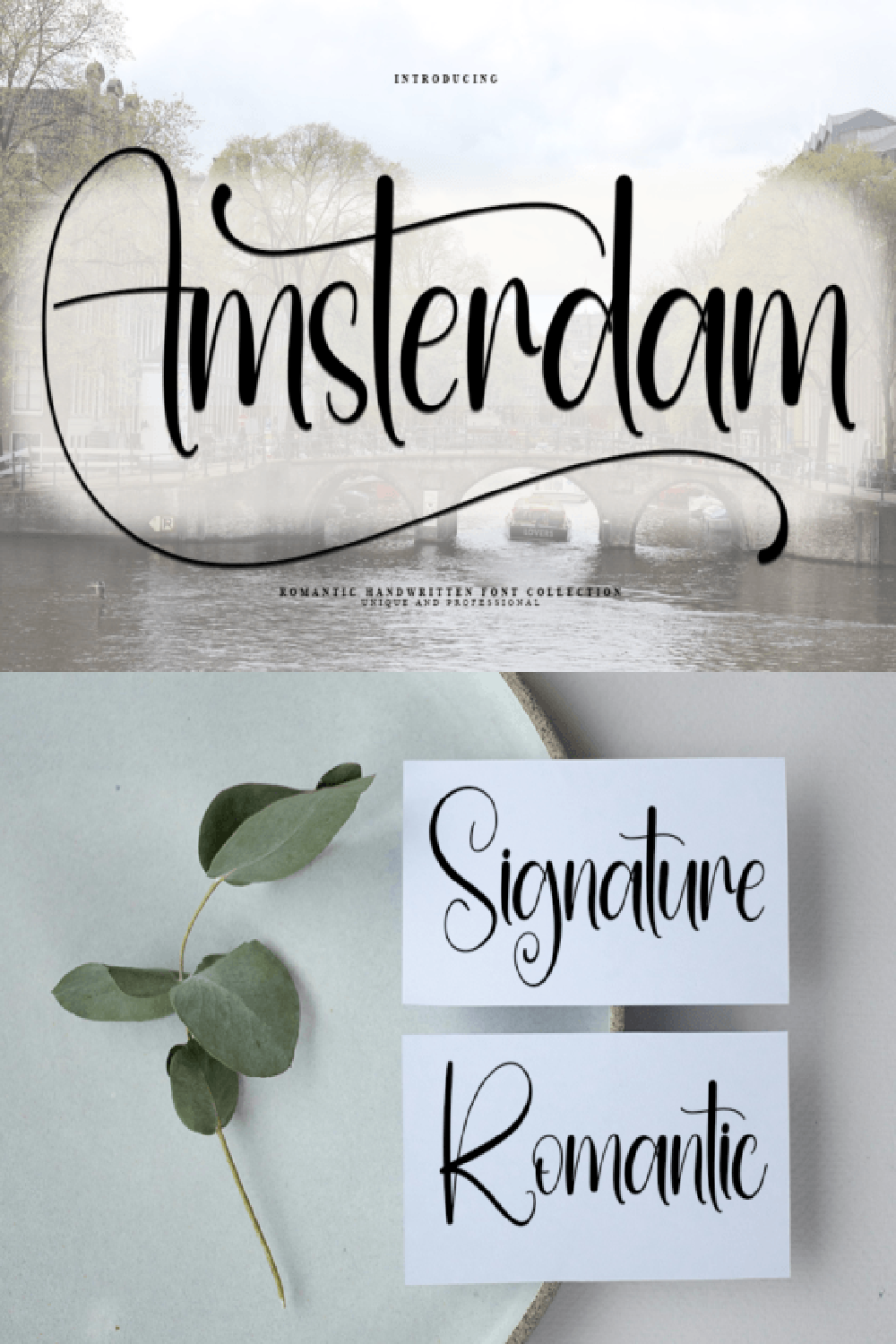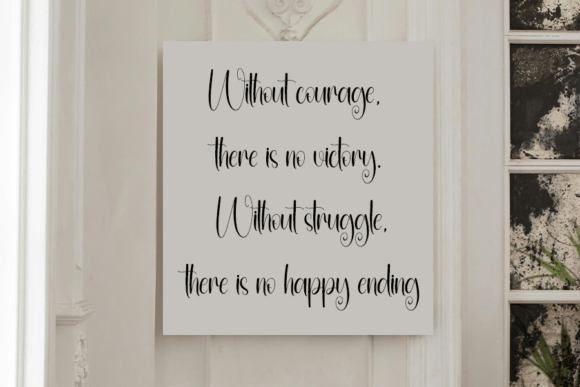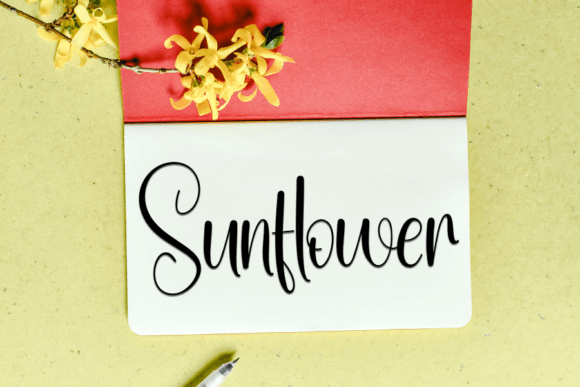
Amsterdam Font: An Elegant Signature Script for DIY & Branding
About the Amsterdam Font
Step up your design game with Amsterdam Font, a font that exudes confidence and style. Amsterdam is a delicate handwritten font carefully crafted for a cool and unique design. This font can be used to write letters, invitations, food products, titles, and more.
Amsterdam Font Usage Examples